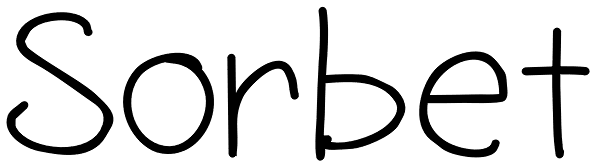
Sorbet
Sorbet was designed with freshness and youth in mind. Sorbet is a casual, sans-serif font perfect for scrapbooking, teaching, and everyday notes in mind. It is a modest type with lots of potential. What was the inspiration for designing the font...